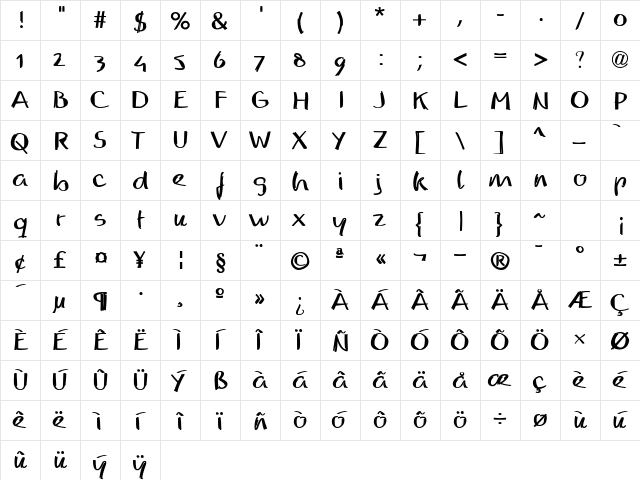
ReadMyHandLL Bold Font Preview
Design Context for ReadMyHandLL Typeface
ReadMyHandLL flows with the natural rhythm of handwritten lettering, making it ideal for designs that call for warmth and personal expression. The heavy weight commands attention and anchors typographic hierarchies.
Font Pairing: Combine ReadMyHandLL with a simple geometric sans for maximum contrast — the tension between flowing curves and clean structure is a classic typographic pairing.
Pro Tip: Pair ReadMyHandLL with a clean sans-serif for supporting text. The contrast between fluid script and geometric structure creates an elegant typographic hierarchy.